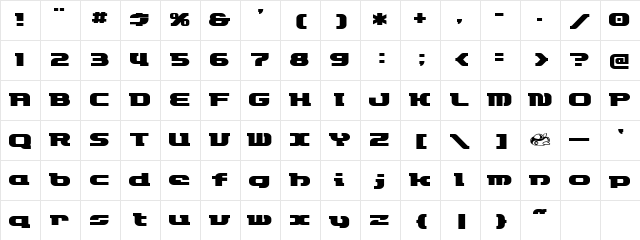
ETRocketype Regular
Design Context for ETRocketype Typeface
ETRocketype is a composed and adaptable typeface that performs quietly and consistently across a wide range of design contexts.